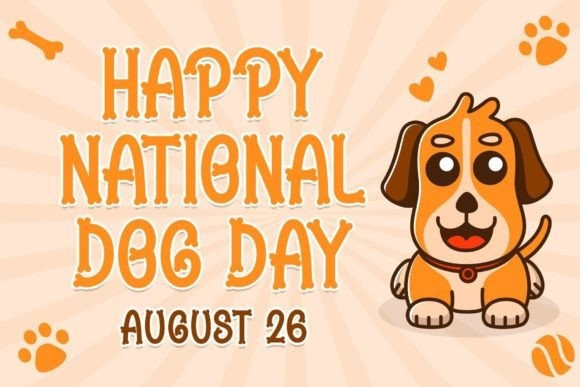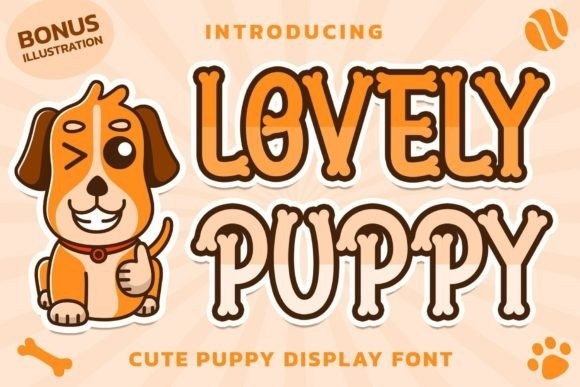
Lovely Puppy Font
Lovely Puppy Font is a cute and adorable display font. Whether you’re using it for crafts, digital design, stickers, or making greeting cards, this font has the potential to become your favorite go-to font, no matter the occasion!